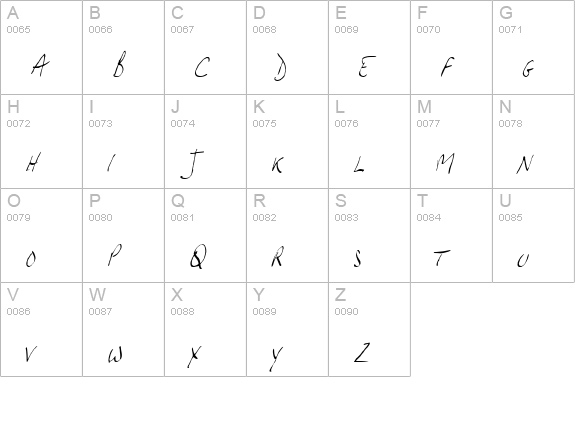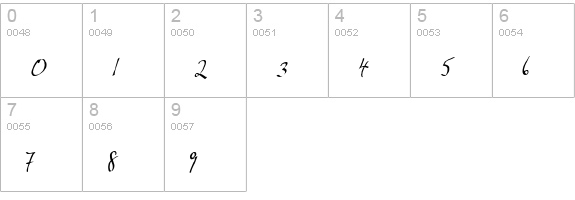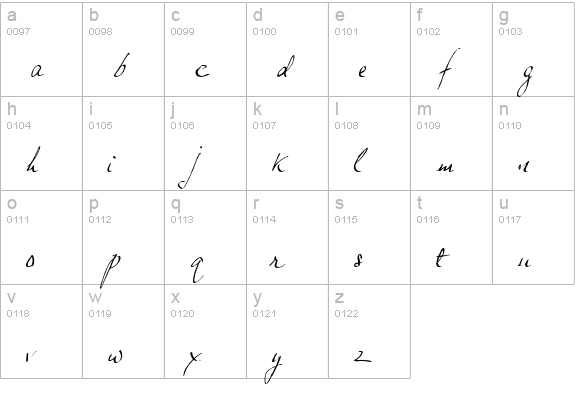
JP Hand Slanted Font Details
JP Hand Slanted font is a unique and artistic typeface that adds a touch of authenticity and playfulness to any design. This font is perfect for projects that require a handmade, hand-drawn feel, giving your text a charming and organic appearance. The slanted angles of the letters add a dynamic and energetic vibe, making it ideal for anything from posters, flyers, invitations, to logos and branding. What makes JP Hand Slanted font even more remarkable is that it is available for free! Yes, you read that right. You can freely download this font at FontsMarket.com, a reliable and trusted source for high-quality fonts. By offering this font for free, the designers behind JP Hand Slanted font want to ensure that creativity knows no boundaries and that everyone can access and use this amazing typeface without any restrictions. JP Hand Slanted font is crafted with attention to detail, with each letter meticulously drawn to provide a genuine handcrafted appearance. The irregularity in the strokes adds character and a human touch to your text, making it stand out and grab attention. This font is versatile, allowing you to experiment with different sizes and styles while maintaining its legibility and visual appeal. Whether you are working on a personal project, a professional design, or simply want to add a touch of whimsy to your creations, JP Hand Slanted font is the perfect choice. Its free availability at FontsMarket.com ensures that you can easily incorporate this font into your designs without breaking the bank. So why wait? Download JP Hand Slanted font now and let your creativity flow. With its unique style and the freedom to use it without any cost, this font will undoubtedly elevate your designs to a whole new level.